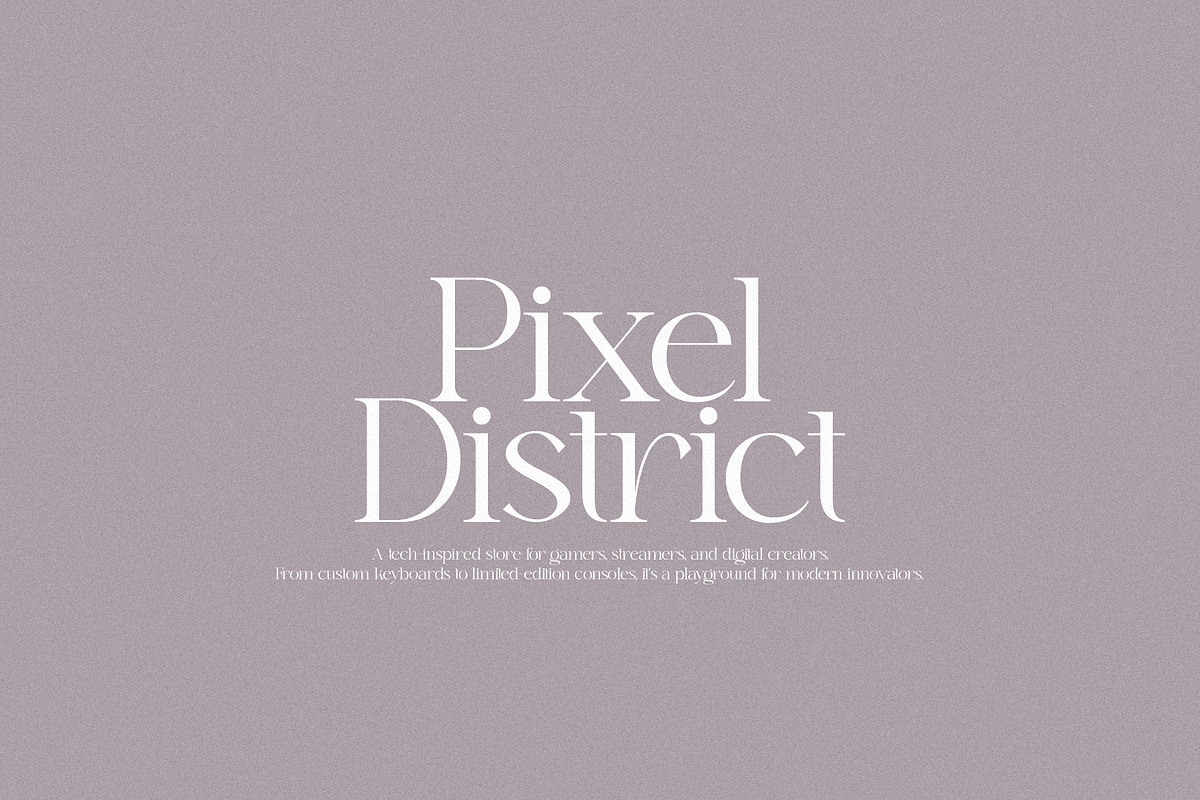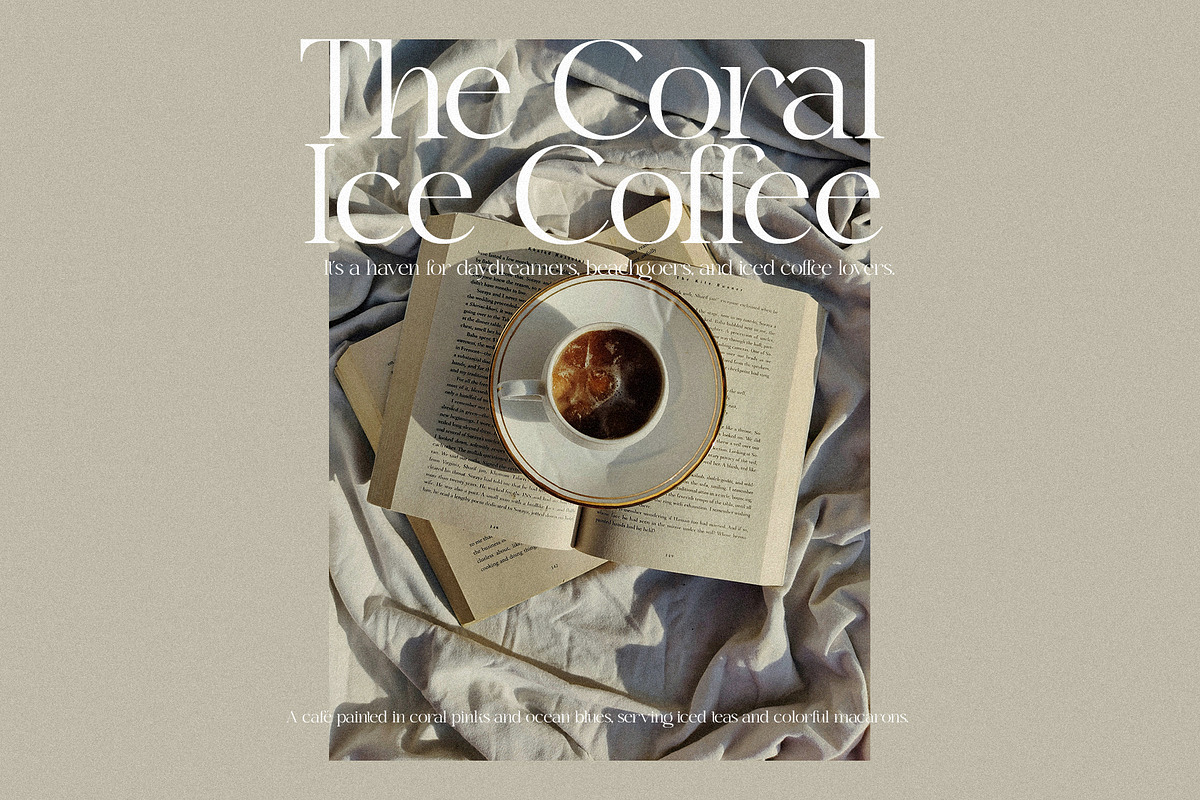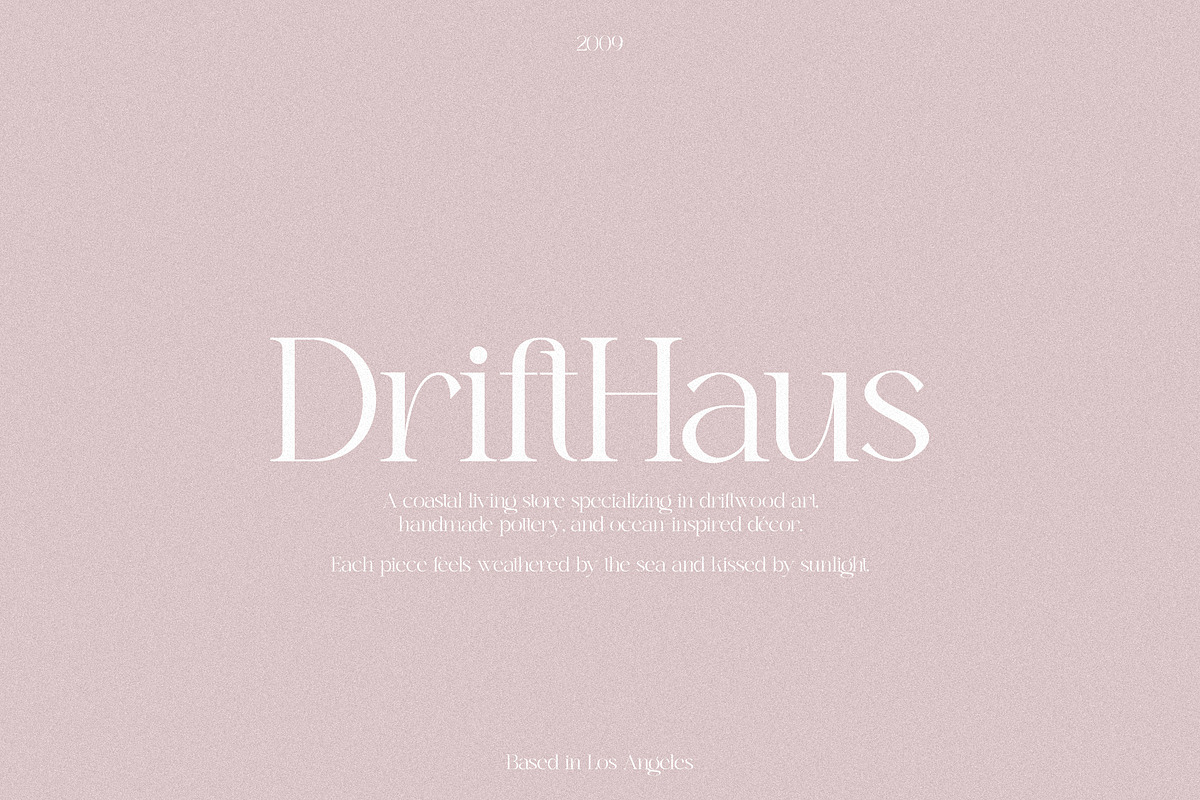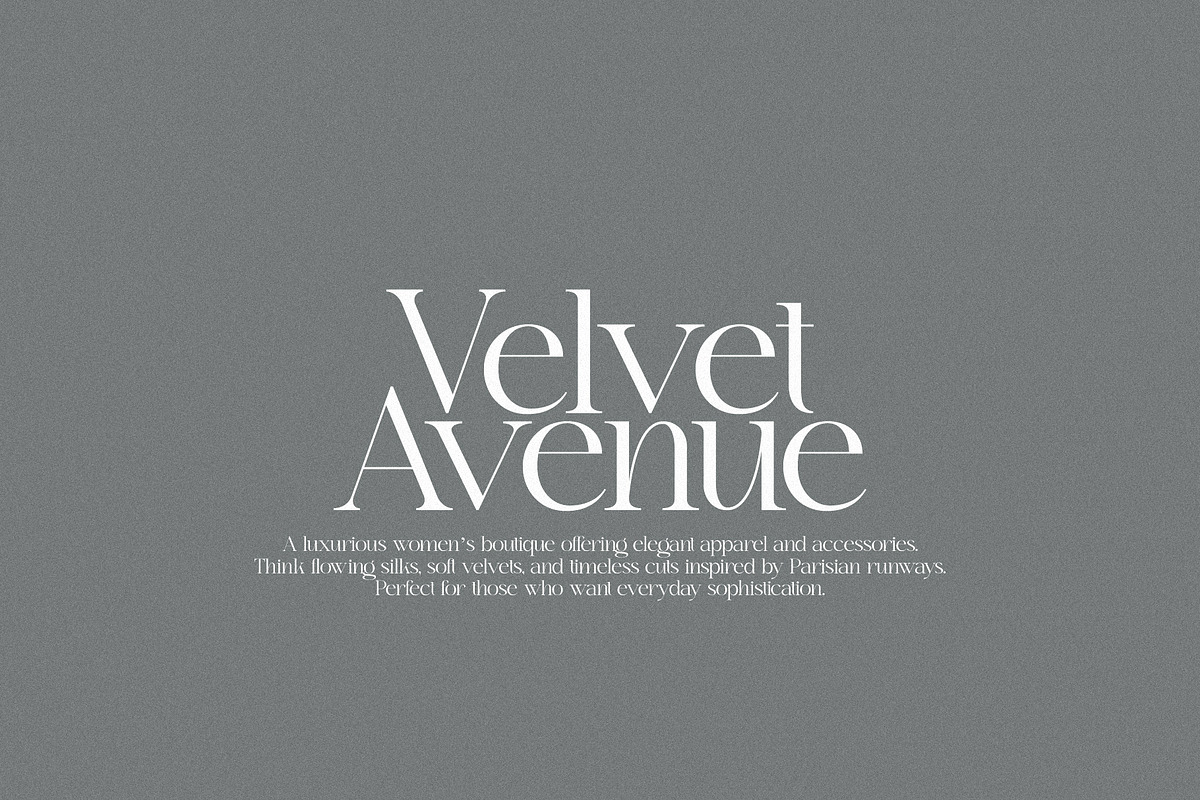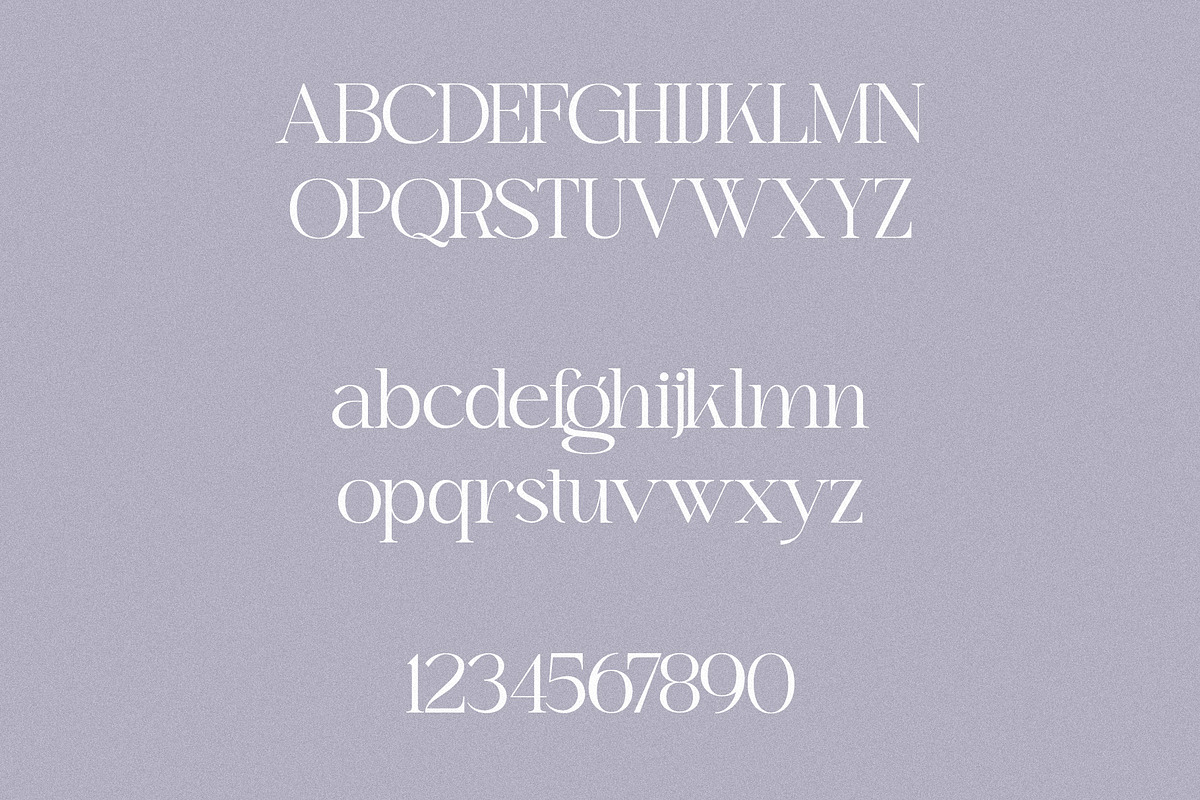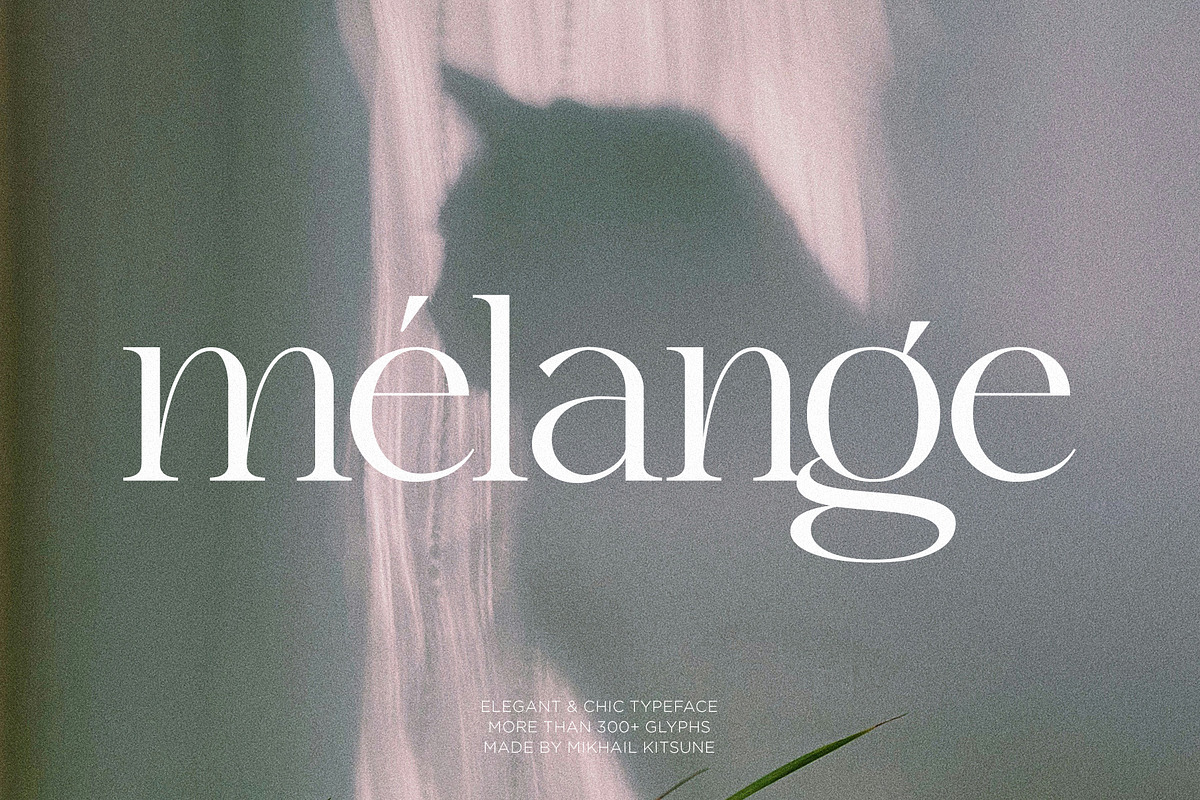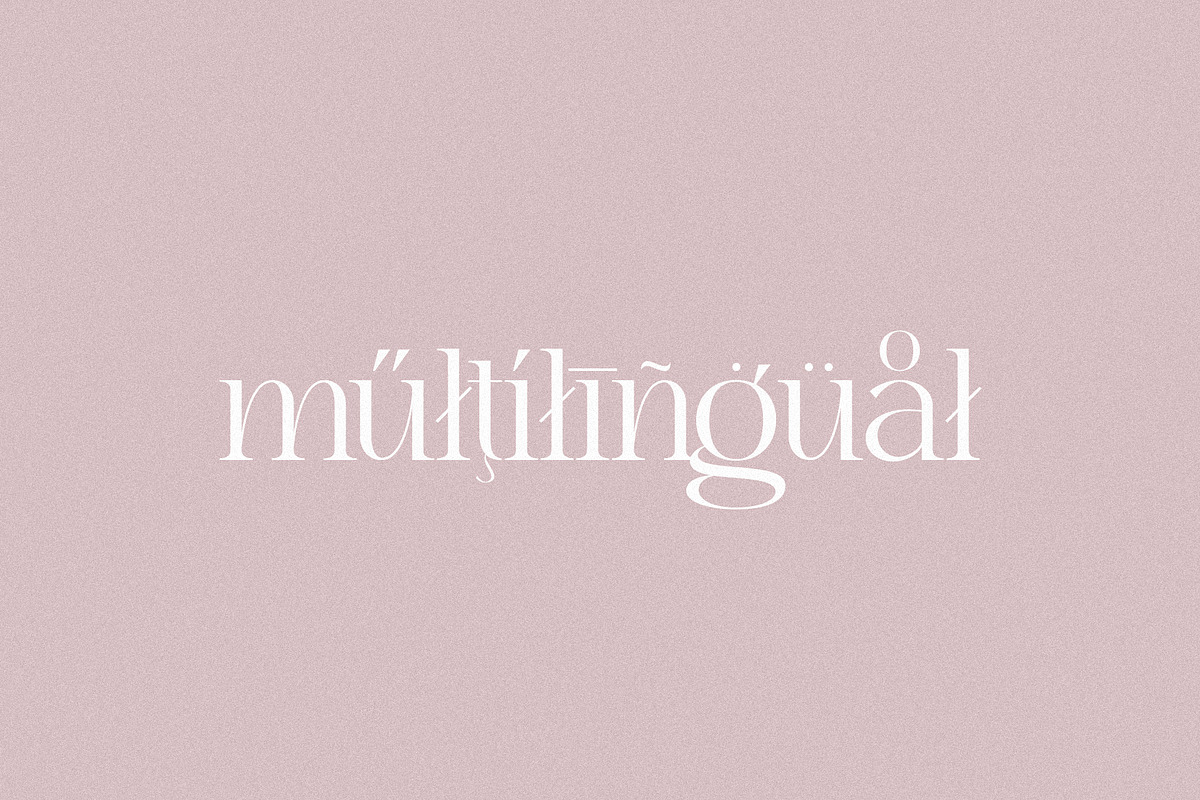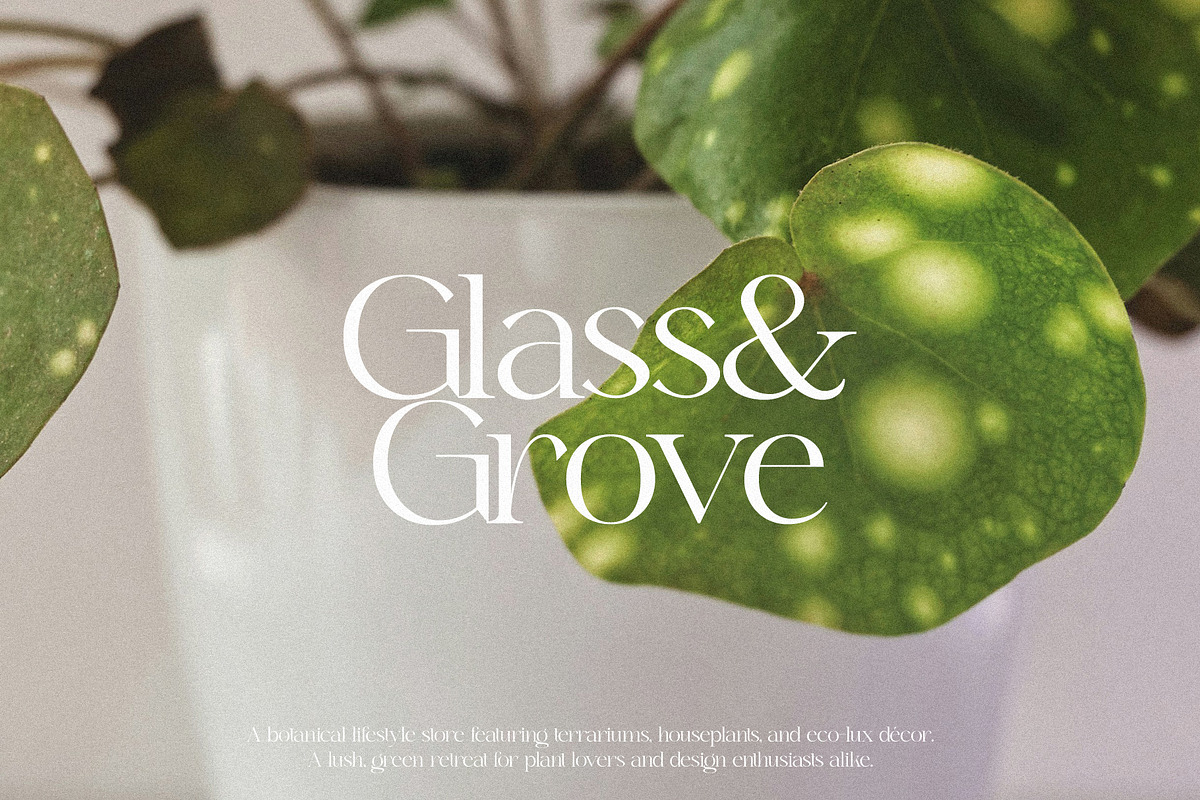
Melange - Elegant Serif
Melange is a sophisticated and timeless typeface designed to bring a touch of refinement to any project. With its graceful curves, high-contrast serifs, and luxurious letterforms, it seamlessly blends classic elegance with modern sensibilities. Perfect for editorial work, branding, and invitations, Melange's distinctive yet readable style makes it ideal for both headlines and body text. Whether you're aiming for a vintage feel or contemporary opulence, this font exudes confidence and beauty, elevating your design with every stroke.
Melange includes:
- Letters
- Symbols & Punctuation
- More than 300 glyphs